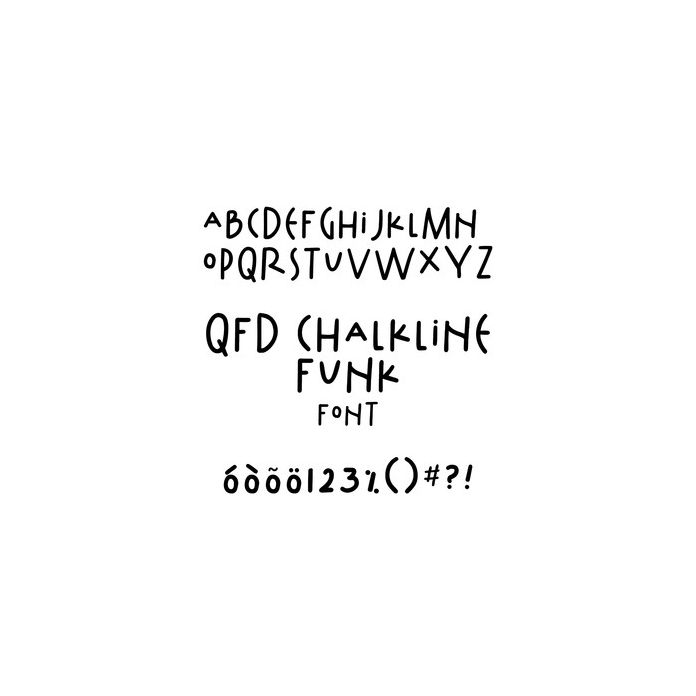
This saucy font is an all caps monoline typeface from handlettering. There are many international characters and numbers and punctuation are included. For creative ideas, to ask questions and for extended commercial licenses please visit http://www.quietfiredesign.ca and blog http://quietfiredigital.blogspot.ca/